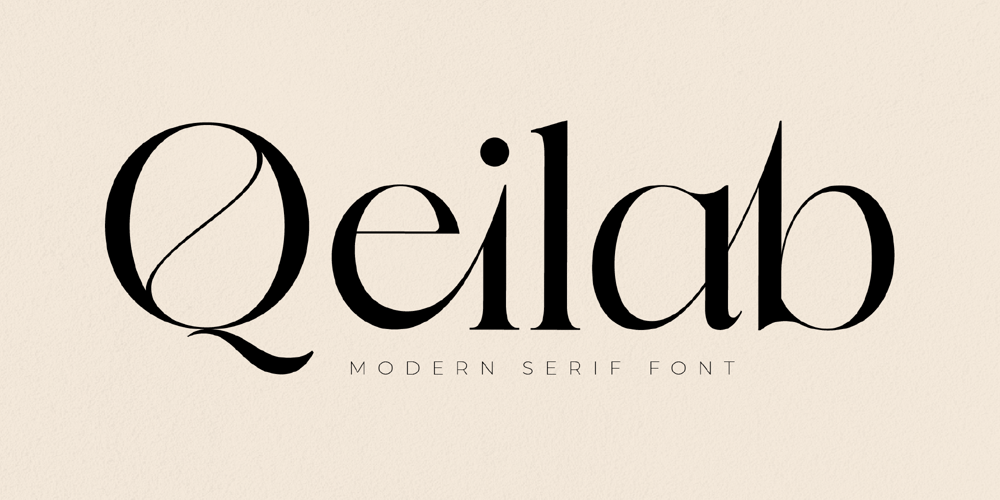
Qeilab Font Family was designed by Heru Utama Putra and published by Letterena Studios. Qeilab contains 2 styles and family package options. Qeilab is a modern and classic serif font with a unique style and modern look. This typeface is perfect for an elegant & luxury logo, book or movie title design, fashion brand, magazine, clothes, lettering, quotes, and so much more.